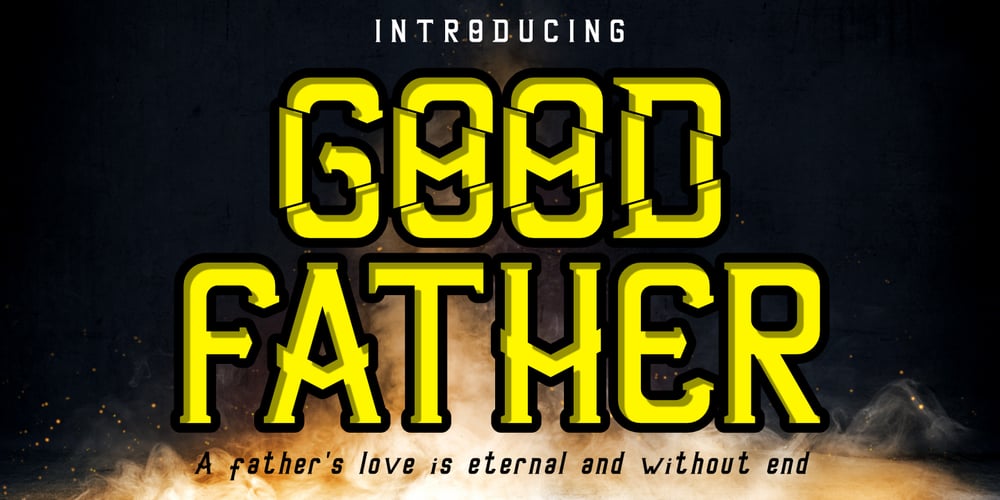
Good Father Font Family was designed by Stephanus Prabowo and published by Andrey Font Design. Good Father contains 2 styles and family package options. Good Father is a cool, bold and modern display font. This font is PUA encoded which means you can access all of the amazing glyphs and ligatures with ease!Add it confidently to your favorite creations and let yourself be amazed by the outcome generated.